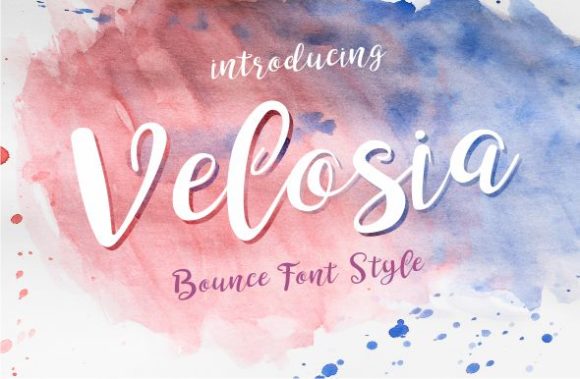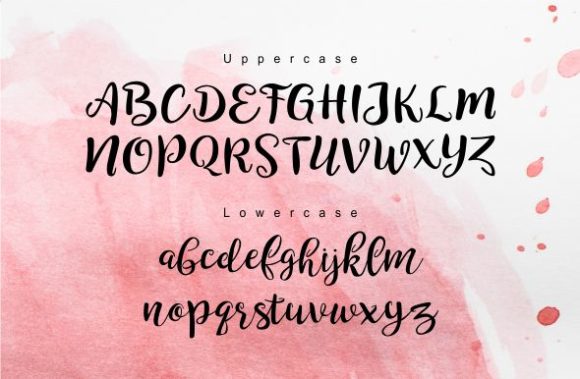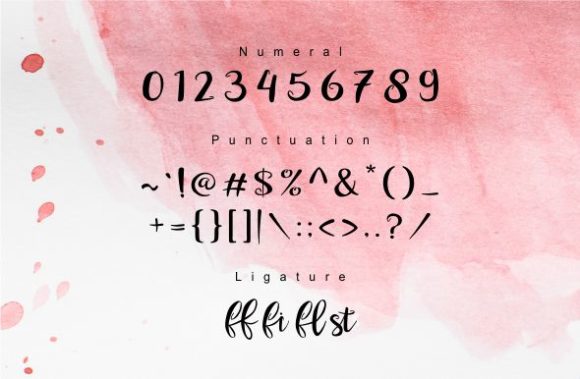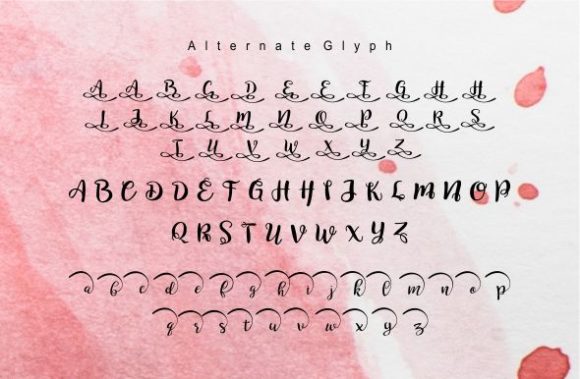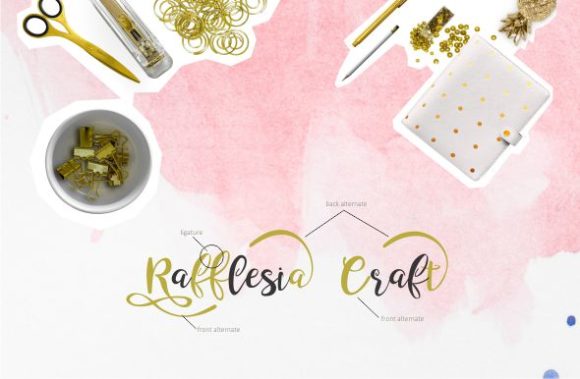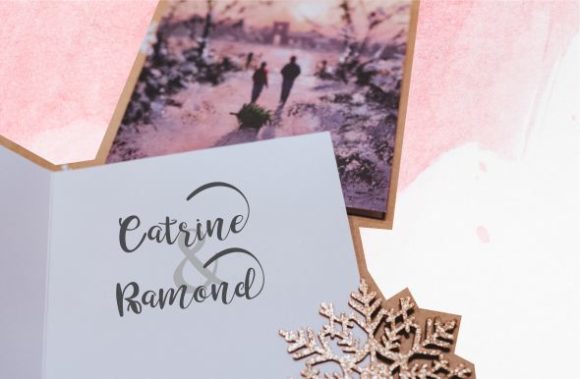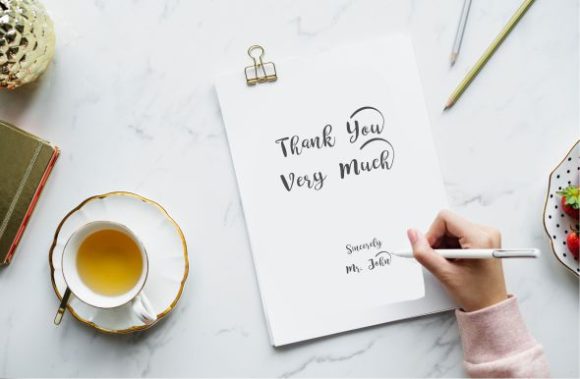
Velosia Font
About Velosia Font
Velosia is a playful and bouncy handwritten font, perfect for branding, logos, invitations, signatures, crafting and more.Make your new designs stand out with this cute font.